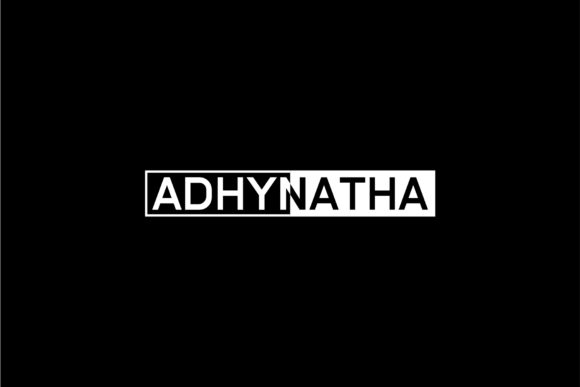
Unlock the Power of Bold Typography with Adhynatha Font
Have you ever been stuck in the middle of a creative project, desperate for the perfect font to bring your vision to life? You’ve browsed through countless options, but nothing seems to capture the essence of your artistic expression. This is where the Adhynatha Font comes in – a modern sans serif typeface that adds a bold and iconic style to your artworks, both retro and modern.
Designed to evoke a solid mood, the Adhynatha Font is perfect for any graphic design or typography project that requires a statement piece. Its versatility makes it a valuable asset for designers looking to elevate their creations and make them stand out in a crowded market. Whether you’re working on a modern logo or a retro-inspired poster, the Adhynatha Font is sure to bring your artistic vision to life.
Adhynatha Font Key Features
- Unique Characteristics: The font features a unique blend of traditional and modern elements, with intricate details and subtle nuances that set it apart from other sans-serif fonts.
Adhynatha Font Review
I’ve had the chance to play around with the Adhynatha font, and overall, I’m quite impressed. ✨ The design has a unique, eclectic vibe that works well for creative projects or branding that wants to stand out from the crowd. The font’s irregularities give it a human touch, making it feel more relatable and authentic.
One of the standout features of Adhynatha is its versatility. ✨ It comes in a range of weights, from light to bold, making it suitable for both small text and headlines. The font also supports a wide range of languages, which is a bonus for designers working on multilingual projects.
- ⚠️ Limited character set: While Adhynatha supports a wide range of languages, it falls short in terms of character count. This might be a concern for designers working on projects that require a lot of special characters or symbols.
- ⚠️ Limited OT features: Adhynatha’s OpenType features are somewhat limited, which might make it difficult to use for designers who rely heavily on advanced typography features.
Overall, I think Adhynatha is a great choice for designers who want to add a touch of uniqueness to their projects. While it may have some limitations, its strengths far outweigh its weaknesses. With a little creativity and experimentation, Adhynatha can be a powerful tool in a designer’s arsenal.
Tips for Getting the Most Out of Adhynatha Font
Use the Adhynatha Font for multilingual content, such as posters, brochures, and website headers. Experiment with different font sizes and styles to create visually appealing designs.
The Adhynatha Font is ideal for designing:
- Posters and brochures
- Website headers and footers
- Multilingual content